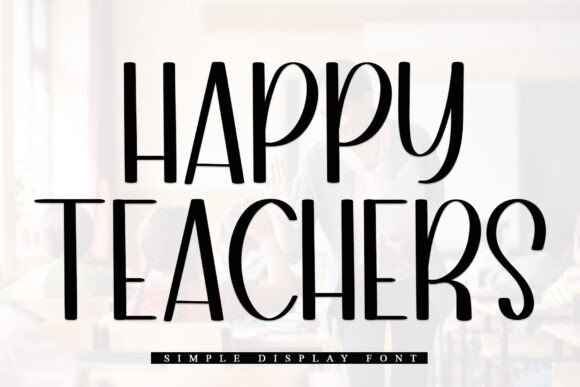
Introducing Happy Teachers Font: The Sweet and Friendly Handwritten Font
Are you looking for a font that can add a personal touch to your designs? Look no further than the Happy Teachers Font. This sweet and friendly handwritten font is perfect for creating unique and engaging designs that stand out from the crowd. In this article, we’ll take a closer look at the Happy Teachers Font and explore its features, benefits, and uses.
What is Happy Teachers Font?
Happy Teachers Font is a handwritten font designed to bring a touch of warmth and personality to your designs. Its natural and unique style makes it incredibly fitting to a large pool of designs, from educational materials to marketing campaigns. The font is perfect for designers, teachers, and anyone looking to add a personal touch to their work.
Features of Happy Teachers Font
- Handwritten style: Happy Teachers Font has a beautiful, handwritten style that gives it a personal and unique touch.
- Natural and unique: The font’s natural and unique style makes it incredibly fitting to a large pool of designs.
- Easy to read: The font is easy to read, making it perfect for body text and headlines.
- Versatile: Happy Teachers Font can be used for a wide range of designs, from educational materials to marketing campaigns.
Benefits of Using Happy Teachers Font
Using Happy Teachers Font can bring numerous benefits to your designs. Here are a few:
- Adds a personal touch: The font’s handwritten style adds a personal touch to your designs, making them more engaging and relatable.
- Stand out from the crowd: Happy Teachers Font is unique and distinctive, making it easy to stand out from the crowd.
- Improves readability: The font’s easy-to-read style improves readability, making it perfect for body text and headlines.
- Increases creativity: The font’s versatility and uniqueness can inspire creativity and help you think outside the box.
Uses of Happy Teachers Font
Happy Teachers Font can be used for a wide range of designs, including:
- Educational materials: The font is perfect for educational materials, such as textbooks, workbooks, and worksheets.
- Marketing campaigns: Happy Teachers Font can be used for marketing campaigns, such as brochures, flyers, and social media graphics.
- Signage: The font can be used for signage, such as posters, banners, and billboards.
- Digital designs: Happy Teachers Font can be used for digital designs, such as website headers, email newsletters, and social media graphics.
Tips and Tricks for Using Happy Teachers Font
Here are a few tips and tricks for using Happy Teachers Font:
- Use for creative projects: Happy Teachers Font is perfect for creative projects, such as art journals, scrapbooking, and mixed media.
- Add a personal touch: Use the font to add a personal touch to your designs, such as a handwritten note or a quote.
- Experiment with different styles: Happy Teachers Font can be used in different styles, such as bold, italic, and underlined.
- Use for branding: The font can be used for branding, such as logos, business cards, and letterheads.
In conclusion, Happy Teachers Font is a sweet and friendly handwritten font that can add a personal touch to your designs. Its natural and unique style makes it incredibly fitting to a large pool of designs, from educational materials to marketing campaigns. With its ease of use, versatility, and uniqueness, Happy Teachers Font is perfect for designers, teachers, and anyone looking to add a personal touch to their work.